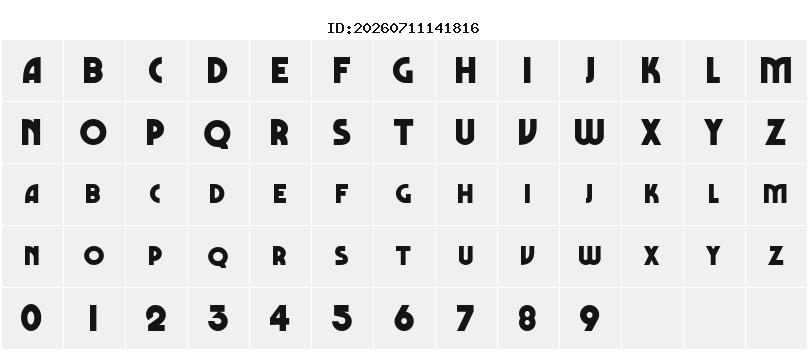
• Font Name: Marbold
• Full Font Name: Marbold Normal
About Marbold.ttf
Marbold.ttf is a modern, elegant sans-serif font designed for ultimate readability and visual harmony. Perfect for branding, headlines, web design, and print materials.